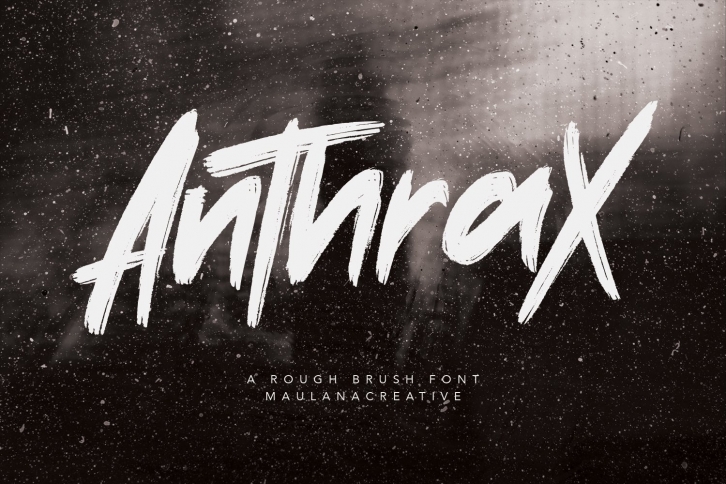
Anthrax Rough Brush Handmade Typeface Written is a trendy and unique font with an authentic style. It was designed by Maulana Creative and it's a great choice for creative people who need such a font. It was released on July 19, 2020 and the file size is 3.48 MB. Anthrax Rough Brush Handmade Typeface Written will add an organic vibe to any design idea!